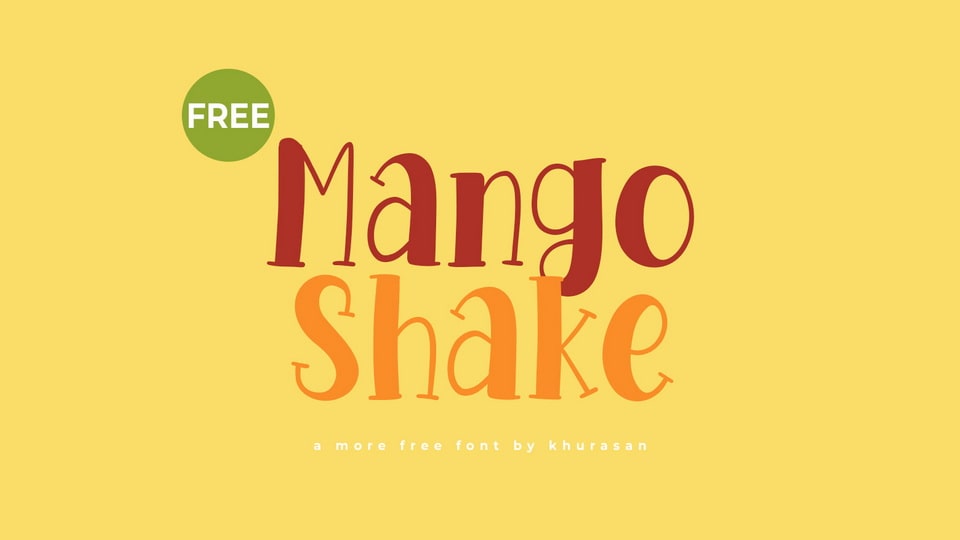
Download Mango Shake font, a playful and quirky hand-drawn typeface that adds a dash of fun and creativity to your designs. Mango Shake features lively, irregular letterforms with contrasting strokes.